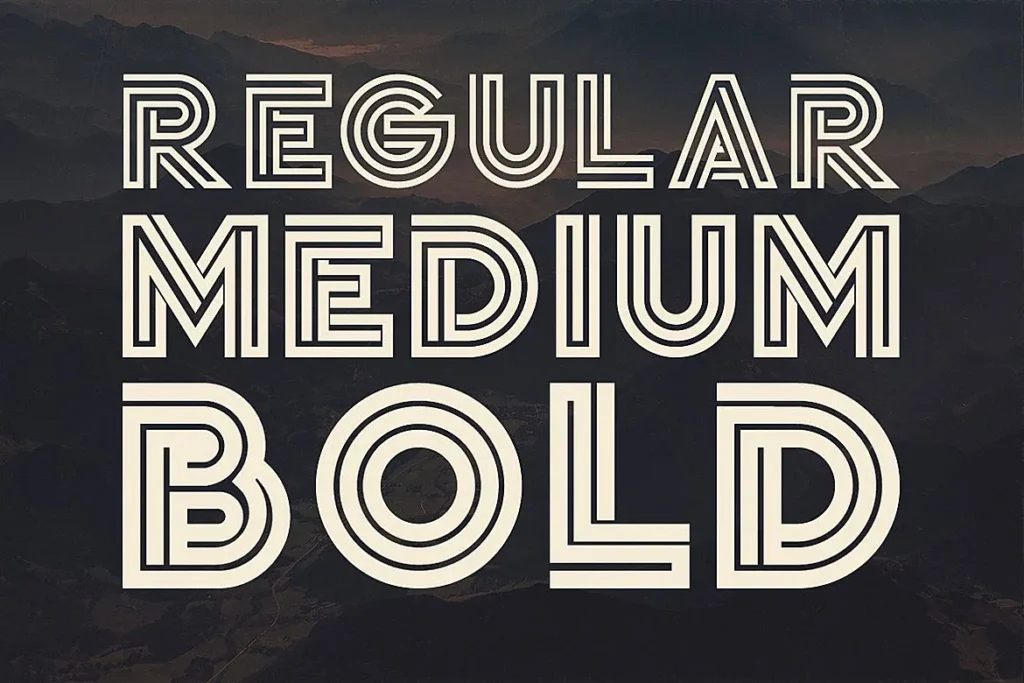
Jordan Font
Jordan Font is a stunningly structured inline font that was designed with stunning display in mind.
This font is adaptable and looks great in a variety of design settings, including both contemporary and vintage projects.